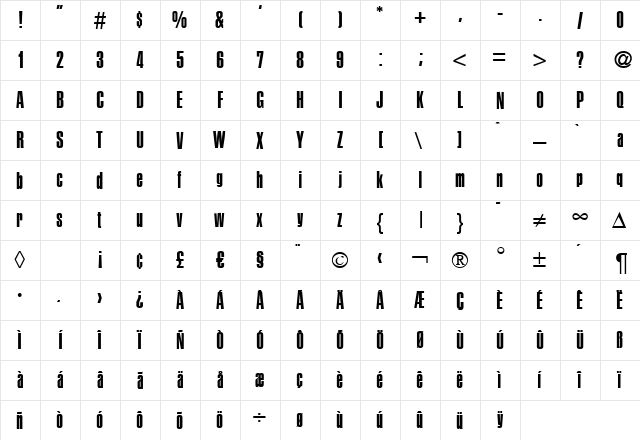
Sans-P700 Regular
Design Context for Sans-P700 Typeface
Sans-P700 is a composed and adaptable typeface that performs quietly and consistently across a wide range of design contexts.